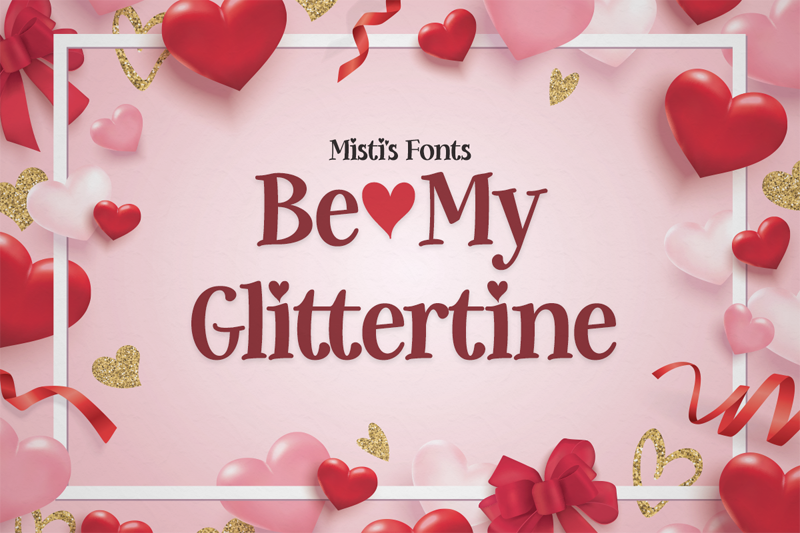
Font name: | Be My Glittertine |
Be My Glittertine is a bold, charming, and heart-filled serif font. Allow it�s whimsical and jolly style to inspire your Valentine�s Day projects. Terms Of Use: https://mistifonts.com/be-my-glittertine/ |